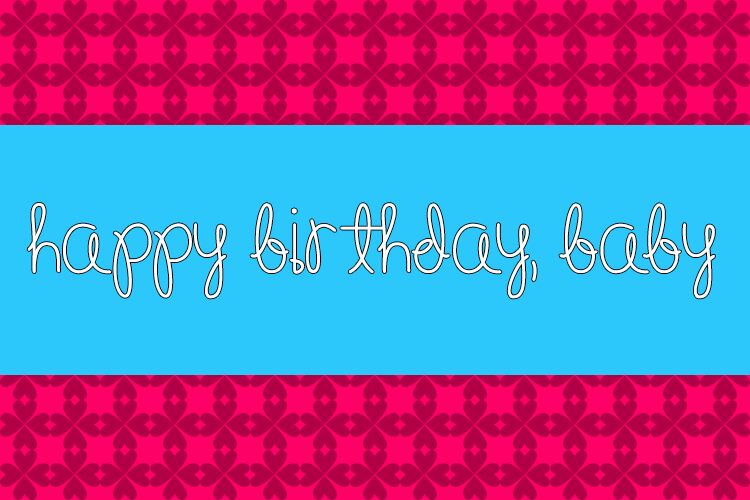
Happy Birthday, Baby by Misti Hammers of Misti's Fonts is a free handwritten font with loose monoline strokes and the pace of a quick personal note. Tall loops and slim rounded letters keep it lively.
Simple line drawings on greeting cards and party invitations can continue the same thin stroke, turning words into part of the illustration. The recurring loops also suit baby announcements and keepsake packaging, echoing ribbons, balloons, and hand-drawn borders.
Happy Birthday, Baby (Medium)